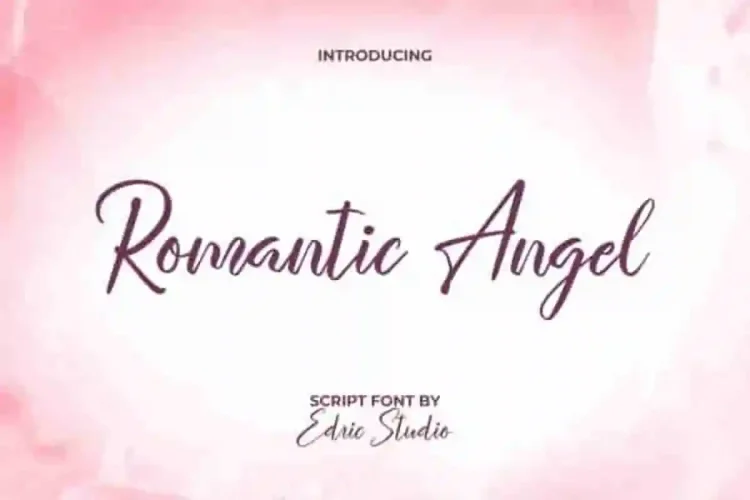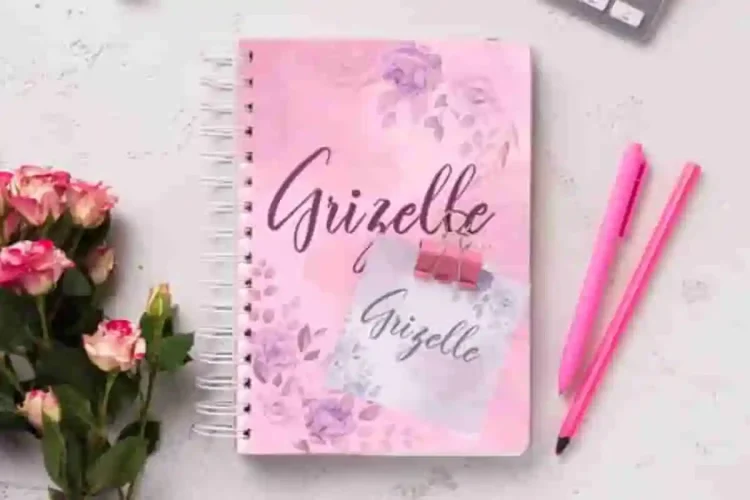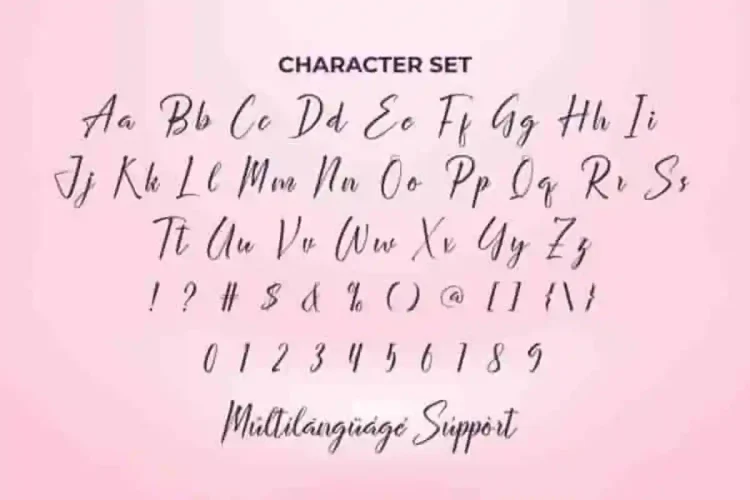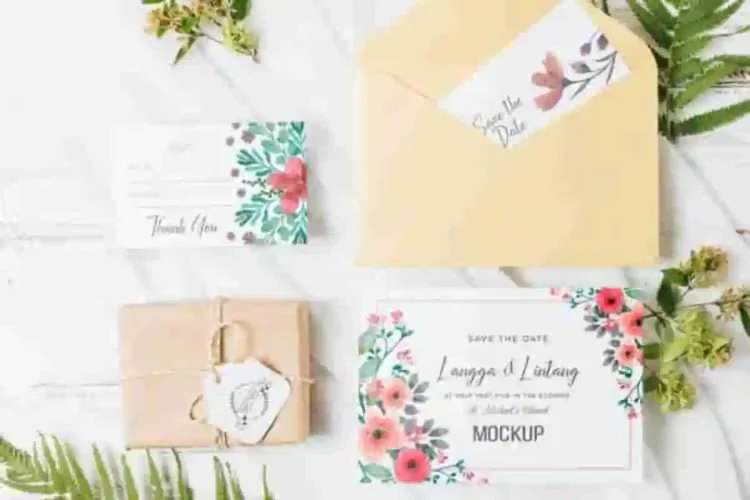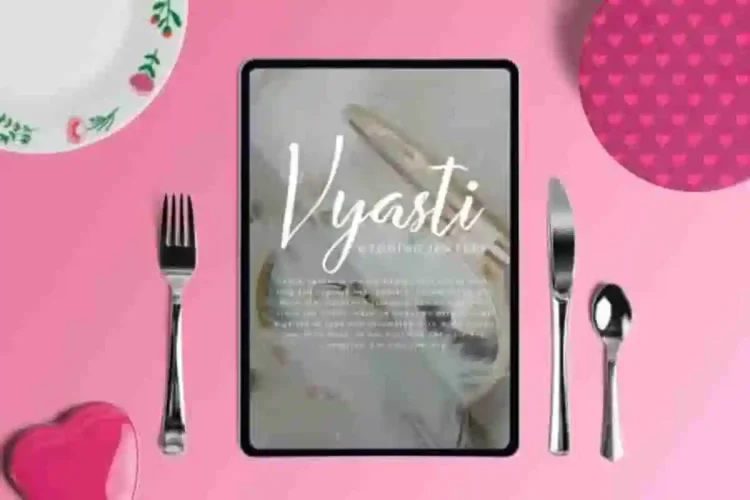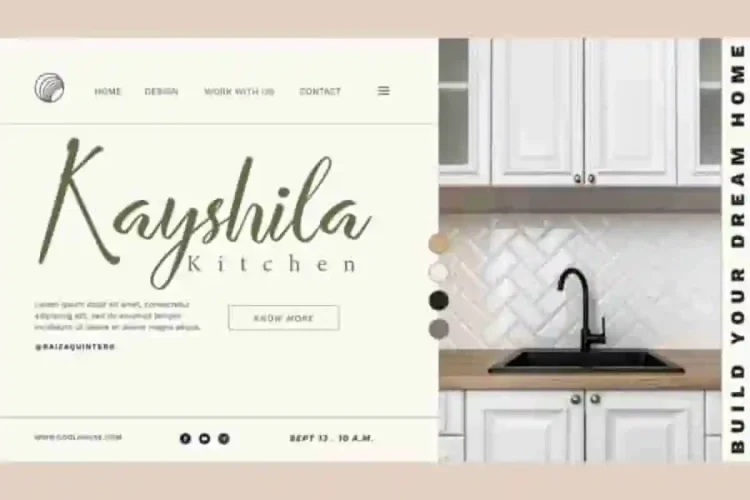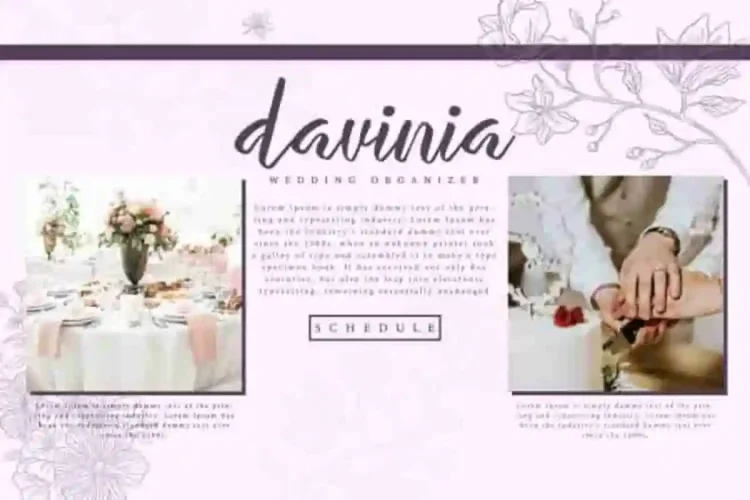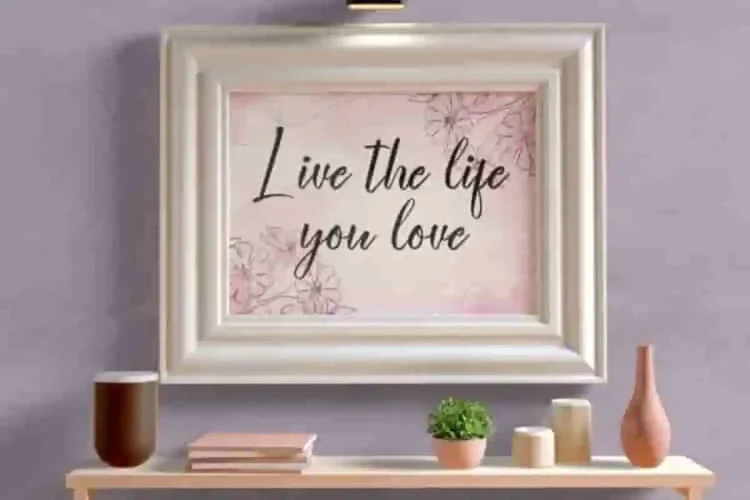
Romantic Angel Script Font is a beautiful calligraphic script font with a radiance of elegance. Inspired by classic romantic movies, this font captures the natural beauty of handwritten brush strokes, delivering smooth and graceful lines that radiate charm.
Romantic Angel Script Font comes with a full set of Uppercase and Lowercase Basic Characters, Number, a large range of Punctuation and Symbol. It has a stunning characters set, perfectly managed with well spaced and kerning. Romantic Angel Script Font will be great for any projects (with extended license) including : brand logo, brochure, catalog, cover, invitation, label, menu, product packaging, quote, stationery, sticker, title, watermark, website, etc.